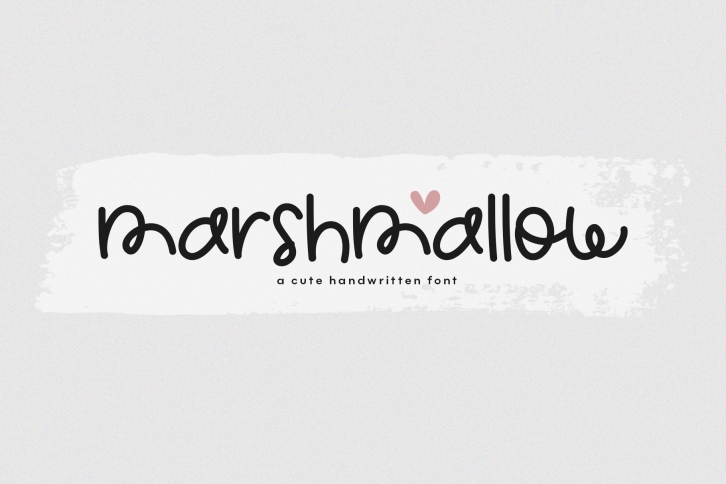
Marshmallow is a gorgeous font that was realeased on April 11, 2019. The font can be used in many style contexts and design environments. Perfect for invitations, magazines, websites, logos, and more! It was designed by KA Designs and the file size is 16.40 MB. Thanks for checking out this font!